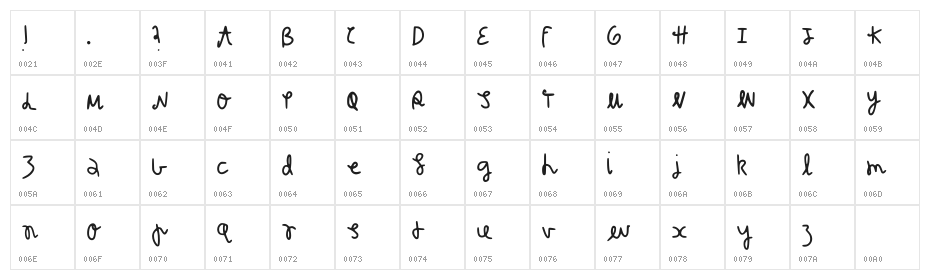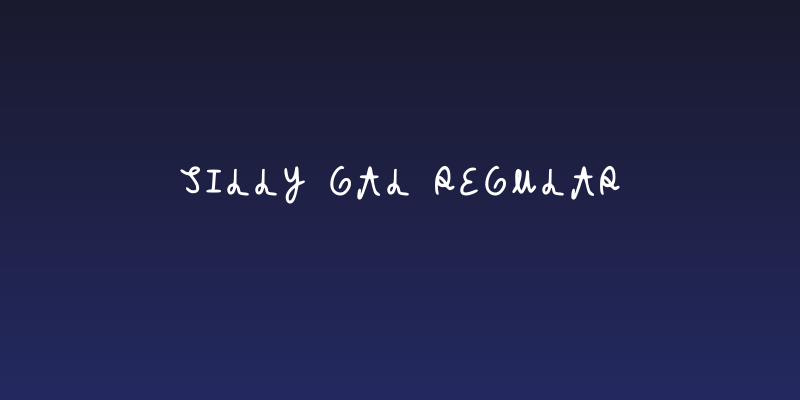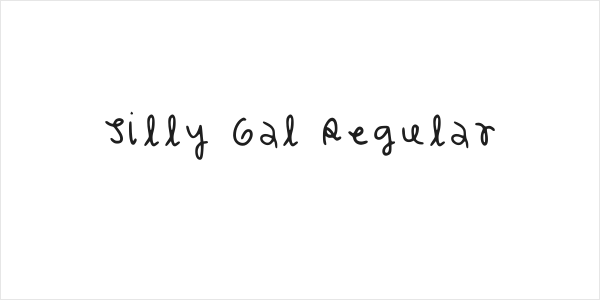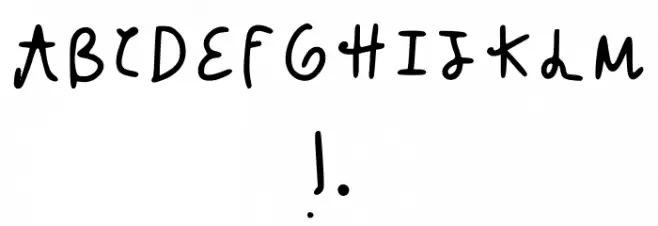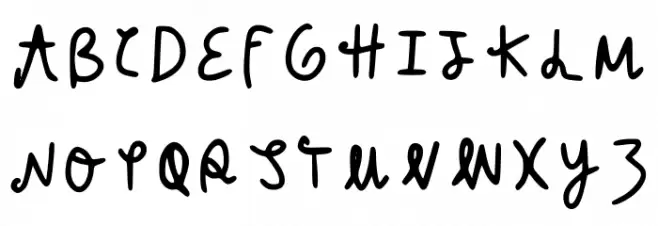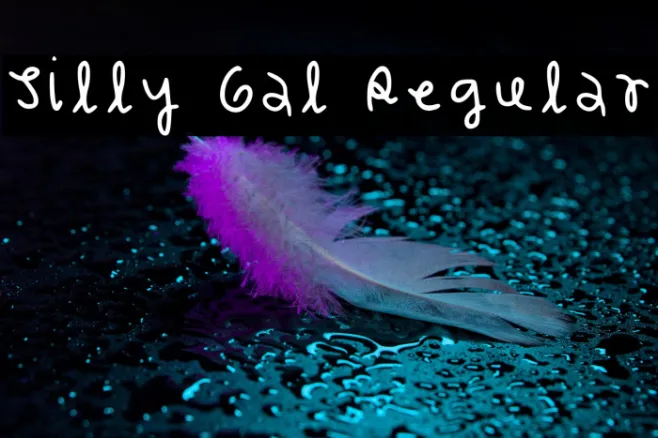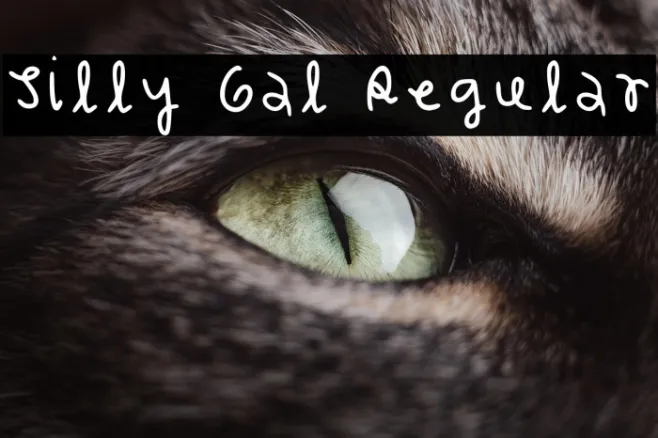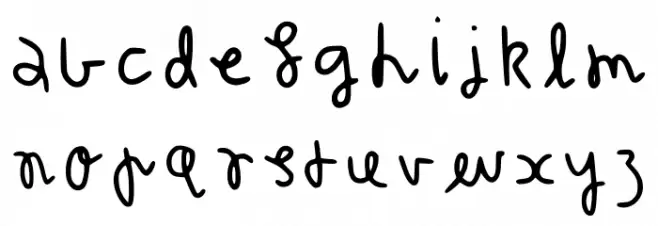
Silly Gal Regular Font
Silly Gal Regular Description
A playful, handwritten font with a casual and informal style, featuring irregular strokes and a whimsical appearance.
| Proposed Projects | Greeting cards, children's books, casual invitations. |